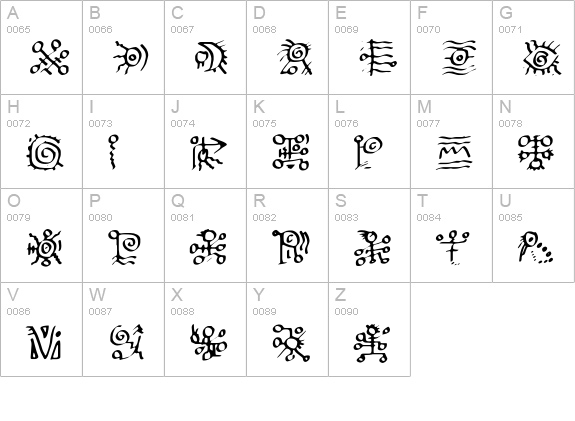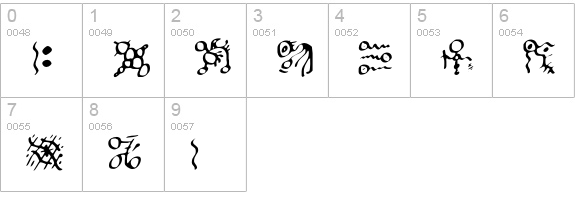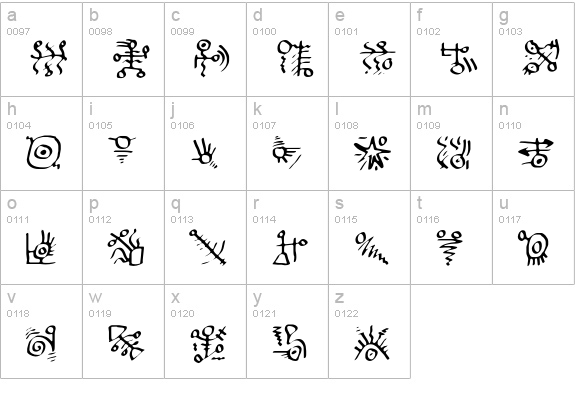
ScorpioTribal Font Details
ScorpioTribal font is a captivating and visually dynamic typeface that perfectly captures the essence of tribal motifs and designs. With its intricate and bold letterforms, this font exudes a powerful and mysterious aura, making it an ideal choice for projects that require a touch of enigma and allure. Embracing the depths of Scorpio's enigmatic nature, ScorpioTribal font brings forth a unique blend of strength and elegance. Each letter is meticulously crafted, showcasing intricate tribal patterns that seamlessly flow together to create a harmonious and captivating visual experience. Whether used for logo designs, headlines, or body text, this font adds a touch of mystique and sophistication to any project. One of the most remarkable aspects of ScorpioTribal font is that it is available for free download at FontsMarket.com. This means that designers and creatives from all walks of life can easily access this remarkable typeface and incorporate it into their projects without any cost. This accessibility ensures that ScorpioTribal font can reach a wide range of individuals who are seeking a font that perfectly captures the essence of tribal aesthetics. With its freely available download, ScorpioTribal font empowers designers to explore and experiment with its unique features, allowing for boundless creativity and artistic expression. Its versatility makes it suitable for a wide range of design projects, from tribal-themed branding to tattoo designs and everything in between. Download ScorpioTribal font from FontsMarket.com today and unlock the power of tribal aesthetics in your designs. Let this captivating typeface guide you on a journey into the enigmatic world of Scorpio, where strength, elegance, and mystique come together to create a truly mesmerizing visual experience.